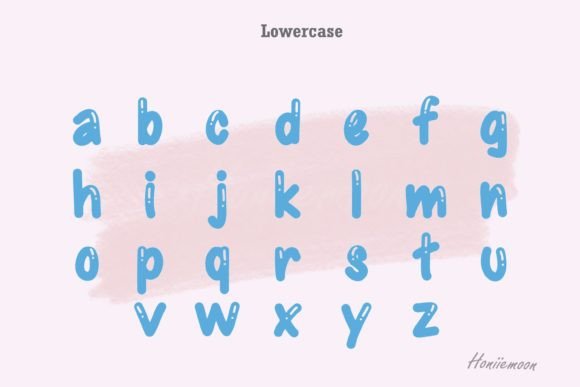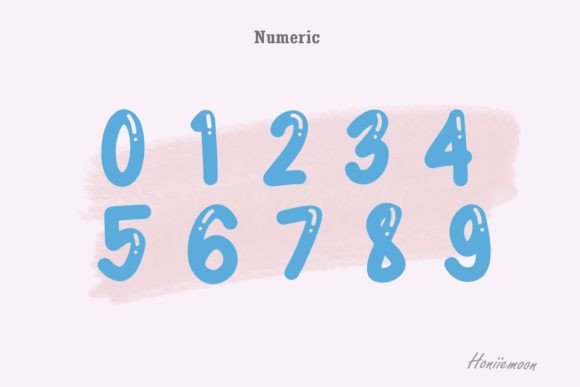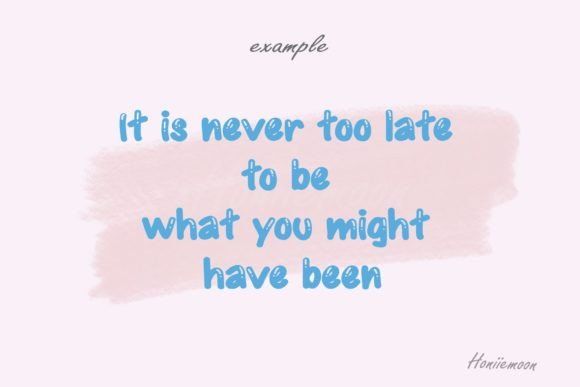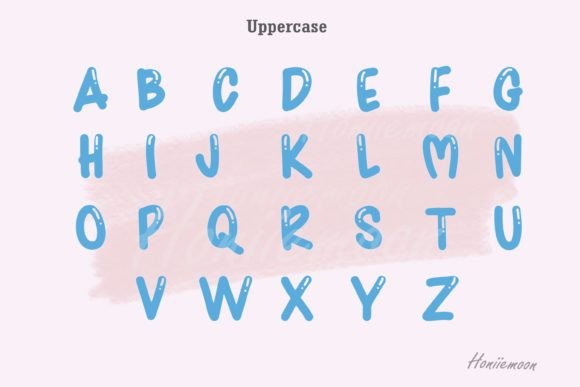
Unlock the Magic of Your Designs with Bubble Font
Have you ever sat at your desk, staring blankly at a blank page, trying to come up with the perfect idea? The creative spark is there, but it’s just out of reach. Suddenly, a burst of inspiration hits you, and you’re off and running. This is what it’s like to work with the right tools – and one of the most powerful tools in your design arsenal is the Bubble Font.
This fun and playful display font is more than just a pretty face. It’s a way to bring your ideas to life, to add a touch of whimsy and personality to your designs. Whether you’re working on a logo, a poster, or a social media campaign, the Bubble Font is the perfect way to add some visual interest and make your message stand out.
Bubble Font Key Features
- Font Family: Bubble Font is a unique, hand-drawn font with a playful and whimsical feel.
- Character Set: Includes a wide range of characters, including uppercase and lowercase letters, numbers, and punctuation marks.
- Unique Characteristics: The Bubble Font features a distinctive, rounded design with subtle variations in size and shape, giving it a friendly and approachable feel.
Bubble Font Review
Bubble Font is a fun and quirky font that can add a playful touch to your designs. ✨ It’s perfect for creating a whimsical atmosphere or for adding a pop of color to your text. The font’s rounded edges and bubbly shape make it ideal for use in children’s products, party invitations, or any project that requires a lighthearted feel.
One of the things I like about Bubble Font is its versatility. ✨ It comes in a range of weights, from light to bold, which allows you to customize the font to suit your design needs. The font also includes a variety of styles, including uppercase and lowercase letters, numbers, and punctuation marks.
- ⚠️ The font may not be suitable for use in formal or professional settings, as it can come across as childish or immature.
- ⚠️ The font’s rounded edges can make it difficult to read in small sizes or at a distance.
- ⚠️ Some users may find the font’s bubbly shape to be distracting or overwhelming.
Overall, Bubble Font is a fun and creative font that can add a unique touch to your designs. While it may have some limitations, it’s perfect for use in projects where a playful atmosphere is desired.
Bubble font is commonly used in social media graphics, event invitations, and educational materials. It’s also a popular choice for creating playful and eye-catching text effects.